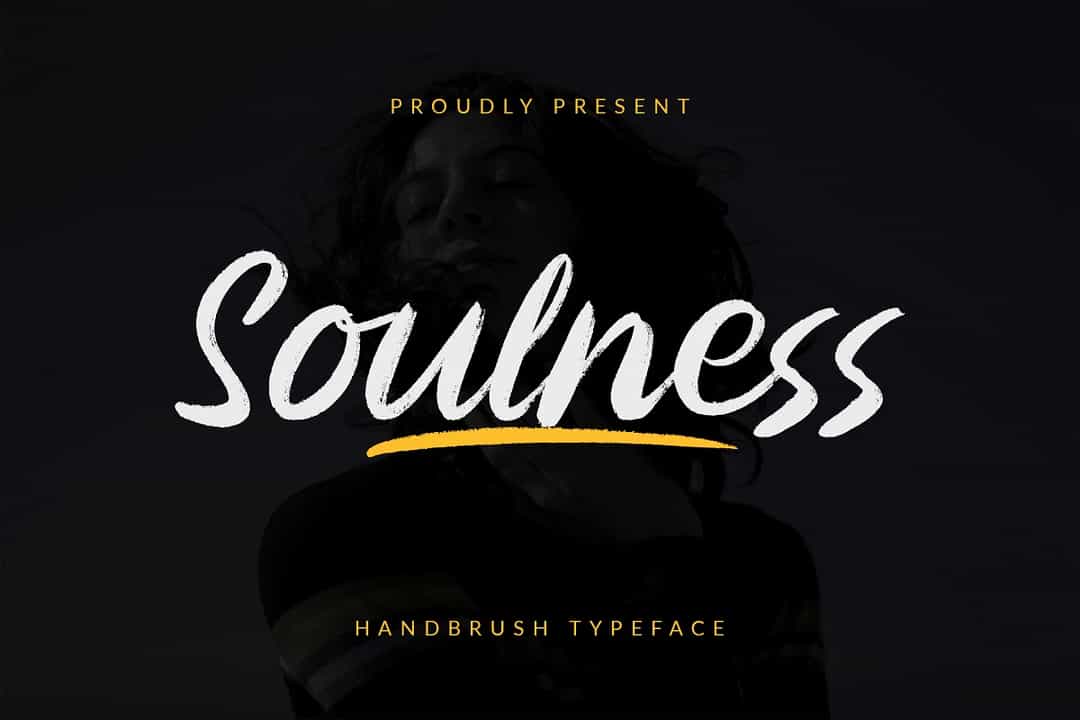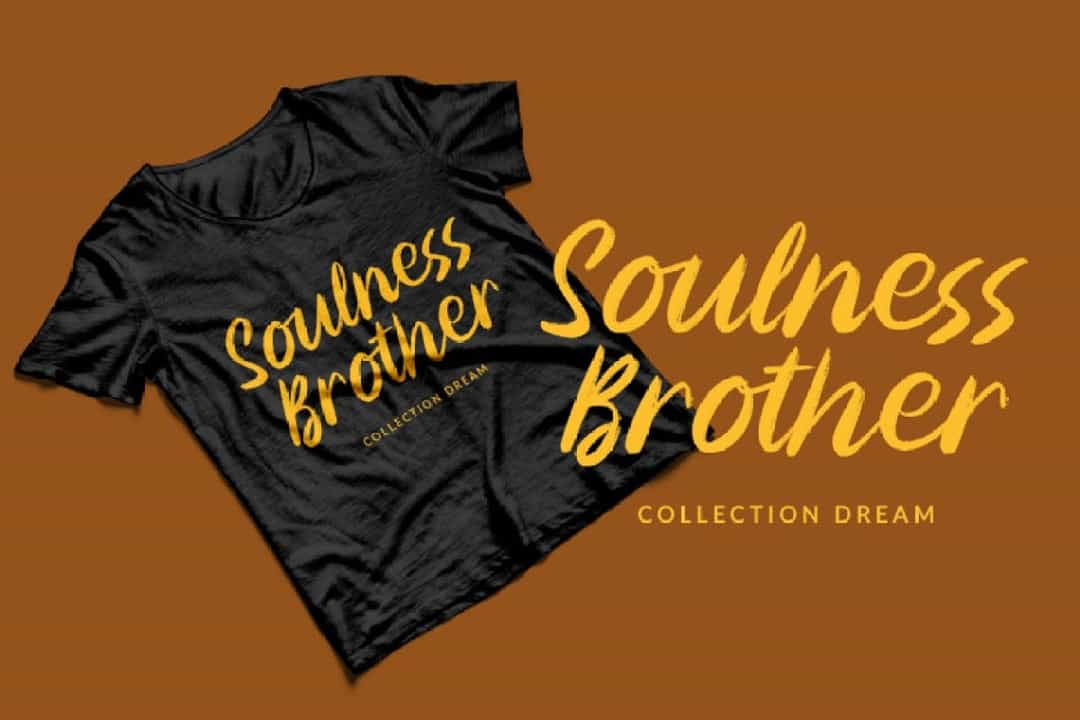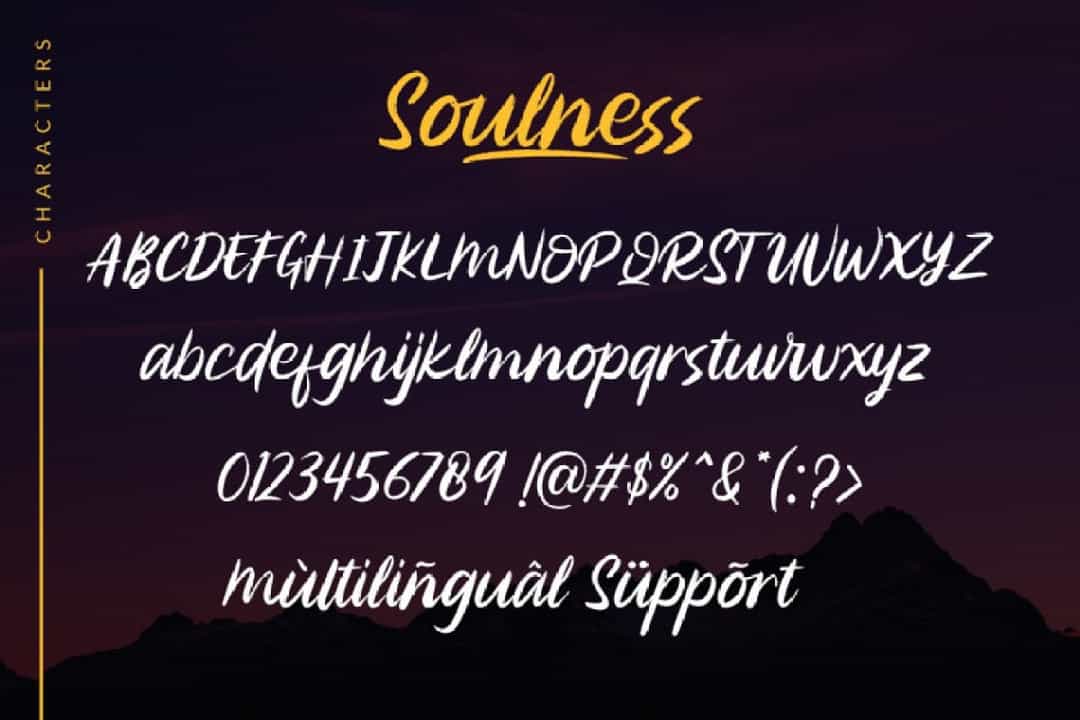
Soulness Brush Font is an elegant handwritten typeface with a brushstroke style, ideal for urban designs, casual themes or projects that call for striking yet versatile styles. Use it with confidence when adding it to your designs for stunning results – image/badge badge, insignia packaging as headline poster apparel or T-shirt prints are just a few possible applications of its versatility!